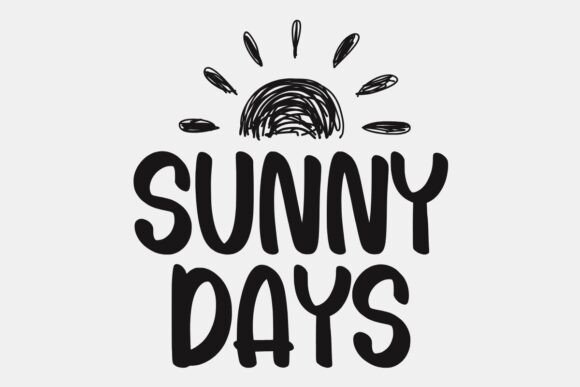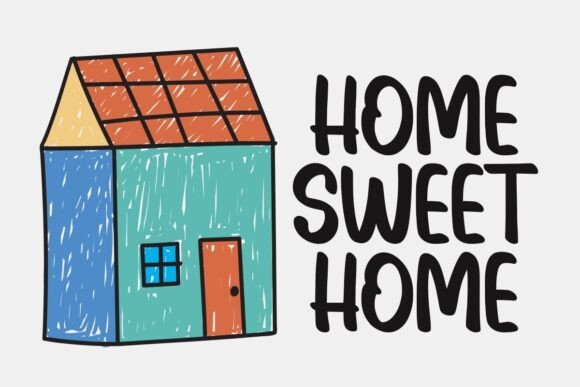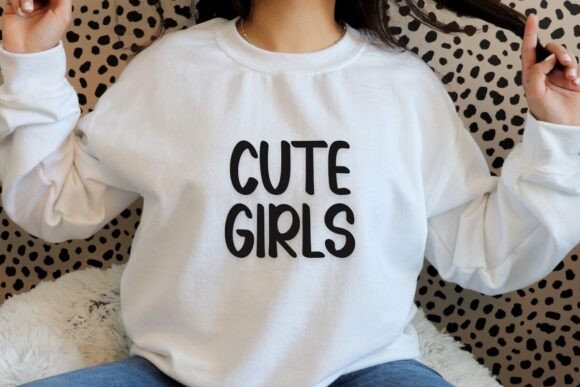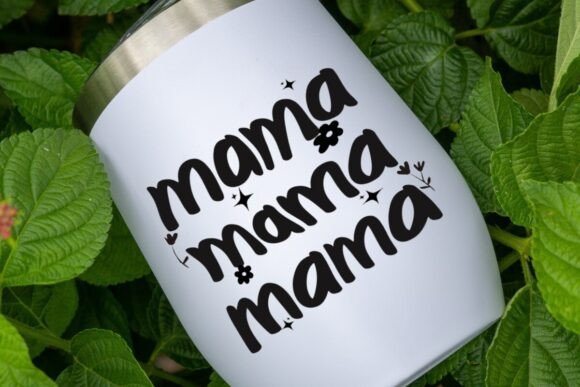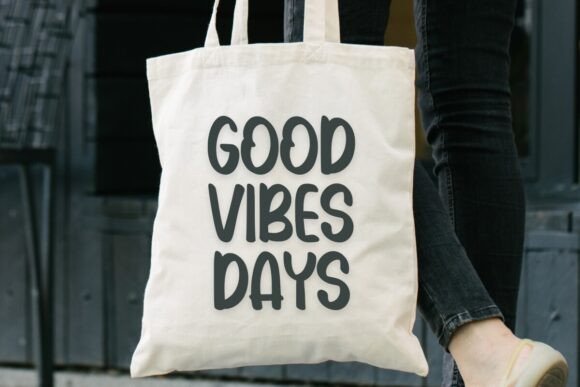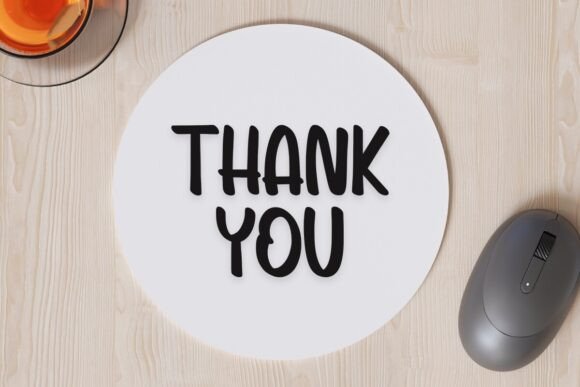
Introducing Float Font: The Modern Style for Creative Expression
In the world of typography, fonts play a crucial role in conveying messages, evoking emotions, and creating visual identities. For designers, crafters, and creative enthusiasts, finding the right font can be a daunting task. However, if you’re looking for a modern, bold, and simple font that can elevate your designs, look no further than Float Font.
What is Float Font?
Float Font is a modern sans-serif font that boasts a unique and distinctive style. Its bold and simple design makes it perfect for a wide range of creative applications, from printing and t-shirts to quotes, books, titles, headlines, photography, decoration, branding, logos, and more.
Key Features of Float Font
• Modern Style: Float Font is designed with a modern aesthetic in mind, making it perfect for designers and crafters who want to create fresh and contemporary designs.
• Bold and Simple: The font’s bold and simple design ensures that your message gets across clearly, without any unnecessary embellishments.
• Unique Touch: Float Font has a unique touch that sets it apart from other fonts, making it perfect for designers who want to create distinctive and memorable designs.
• Versatile: This font is incredibly versatile and can be used for a wide range of creative applications, from digital designs to print materials.
Use Cases for Float Font
Float Font is an incredibly versatile font that can be used for various creative projects, including:
• Printing: Use Float Font for printing projects, such as brochures, flyers, posters, and business cards.
• T-Shirts and Merchandise: Create eye-catching t-shirts, hoodies, and other merchandise with Float Font.
• Quotes and Typography: Use Float Font to create inspiring quotes, typographic posters, and social media graphics.
• Books and Magazines: Float Font is perfect for book titles, headings, and subheadings, as well as magazine covers and interior layouts.
• Headlines and Titles: Use Float Font to create bold and attention-grabbing headlines and titles for your website, blog, or social media channels.
• Photography and Decoration: Float Font can be used to create beautiful photo captions, overlays, and decorative text for your photography projects.
• Branding and Logos: Create a unique and memorable brand identity with Float Font, perfect for logos, business cards, and letterheads.
Why Choose Float Font?
With so many fonts available, why choose Float Font? Here are a few reasons:
• Unique Style: Float Font has a distinctive style that will set your designs apart from others.
• Ease of Use: The font is incredibly easy to read and use, making it perfect for a wide range of creative applications.
• High-Quality Design: Float Font is designed with high-quality and precision, ensuring that your designs look professional and polished.
Float Font is an exceptional font that offers a modern, bold, and simple style perfect for various creative needs. Its versatility, unique touch, and high-quality design make it an excellent choice for designers, crafters, and creative enthusiasts. Whether you’re working on a printing project, t-shirt design, or branding identity, Float Font is sure to elevate your designs and help you achieve your creative goals.